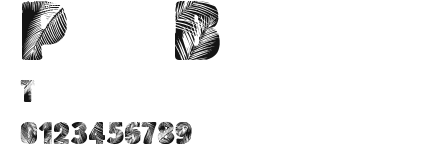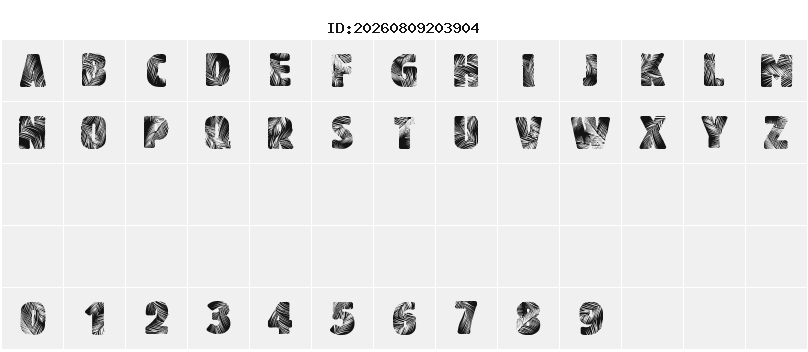
• Font Name: Palm Beach
• Designer: imagex
About Palm Beach.ttf
Palm Beach.ttf is a modern, elegant sans-serif font designed for ultimate readability and visual harmony. Perfect for branding, headlines, web design, and print materials.